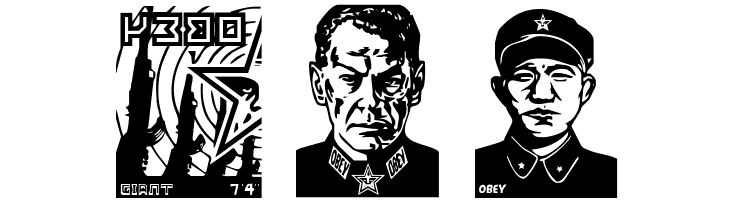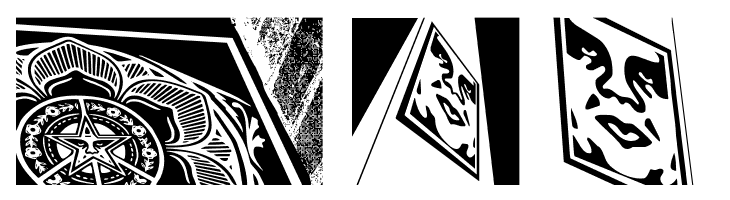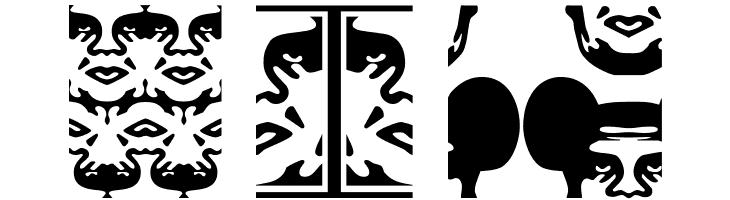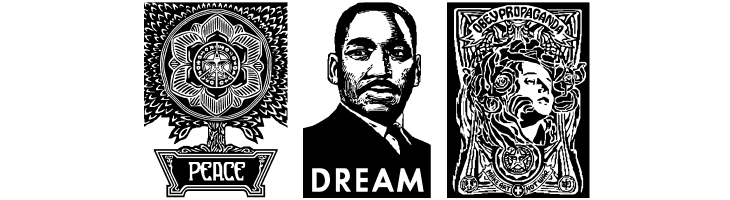
A decorative, urban-inspired font with intricate designs within each uppercase letter.
A bold, graphic font with iconic imagery and a propaganda-style aesthetic.
A collection of bold, graphic elements with iconic imagery and high contrast.
Graphic elements and patterns, not a traditional font.
Bold, graphic, street-art inspired decorative font.
A graphic, poster-inspired decorative font made of illustrated character blocks.
A display font made entirely of intricate graphic illustrations for each character.